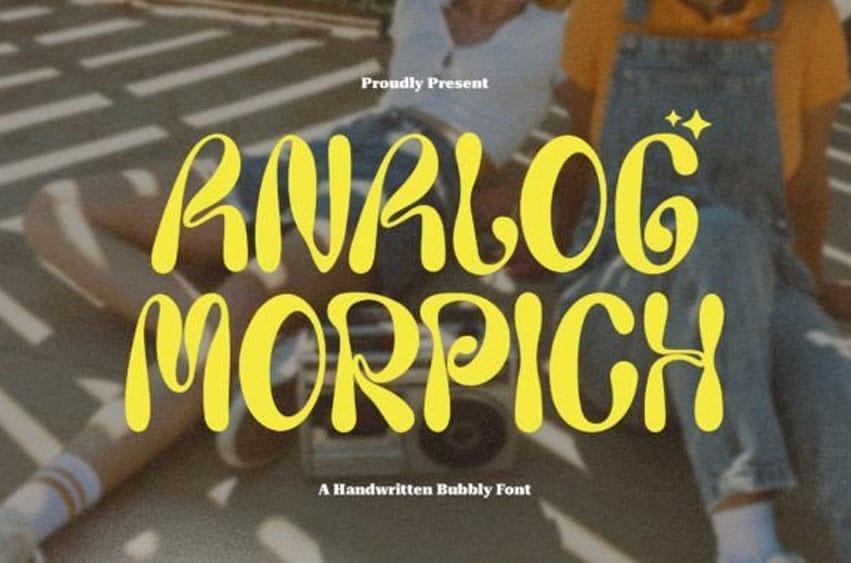
Analog Morpich Font is a fun, retro font with a bubbly, psychedelic vibe.
It has a groovy, vintage style that’s perfect for adding a touch of whimsy and nostalgia to your designs.